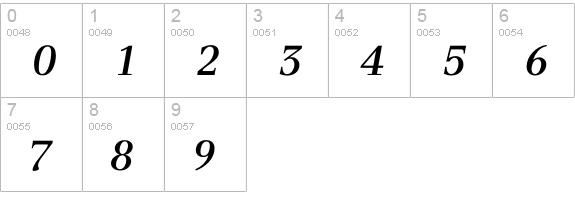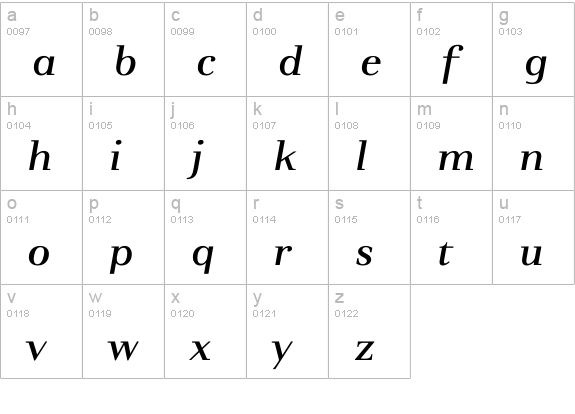
Dedica DaMa Italic Font Details
Dedica DaMa Italic is a distinctive, italic variant in the Dedica typeface family \xE2\x80\x94 well suited to design and typography projects.
Dedica DaMa Italic is a beautifully crafted font that exudes elegance and sophistication. Its slanted, italic design adds a touch of flair to any design project, making it perfect for adding a touch of sophistication to logos, branding, invitations, and more. The flowing curves and delicate serifs of Dedica DaMa Italic create a sense of refinement and grace, making it a versatile font choice for both digital and print applications. The best part? Dedica DaMa Italic is available for free download at FontsMarket.com, allowing you to bring this stunning font into your projects without any cost. Whether you're a designer looking to elevate your creations or a business owner in need of a stylish font for your branding, Dedica DaMa Italic is sure to impress with its timeless beauty and effortless charm. Download this exquisite font today and add a touch of sophistication to your designs!